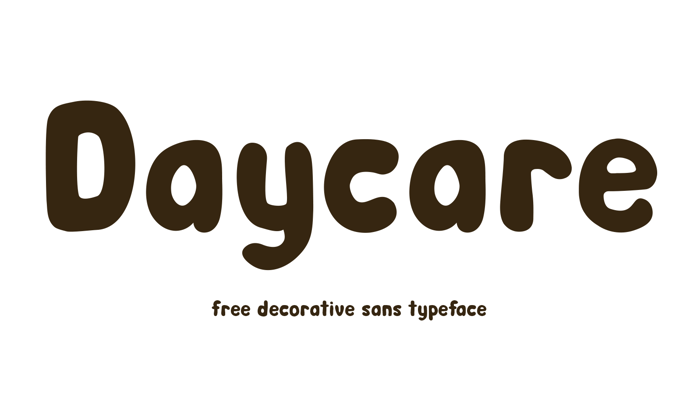
Day Care Font
DAYCARE
A Humanist / decorative sans serif typeface.
Process
Daycare is formal reflection on childhood drawings and childhood care arrangements. Daycare is soft, uneven and playful, capturing the lack of rigid control in preschoolers drawing. With a nod to formal care arrangements, Daycare has a serious underpinning with a full central european character set with special emphasis placed on macron’s, a key typographic element required for writing Māori.
Contrast is very low, weight is heavy, x height is high, diacritics are playful, strokes are uneven, kerning is loose.